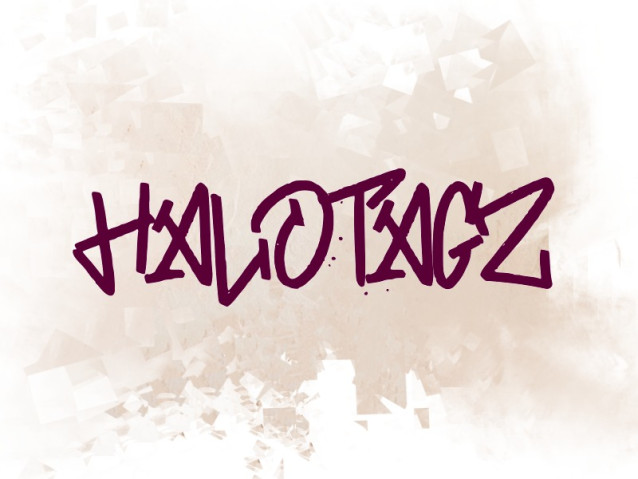
h Halotagz Font is a display font inspired by typical street art calligraphy style or graffiti tag, suitable for your design related to it. Also suitable for movies, documentaries, films, logos, posters, games, book covers, headlines, titles, and many more projects. Add this font to your creative ideas and notice how it will make them stand out!
h Halotagz Font